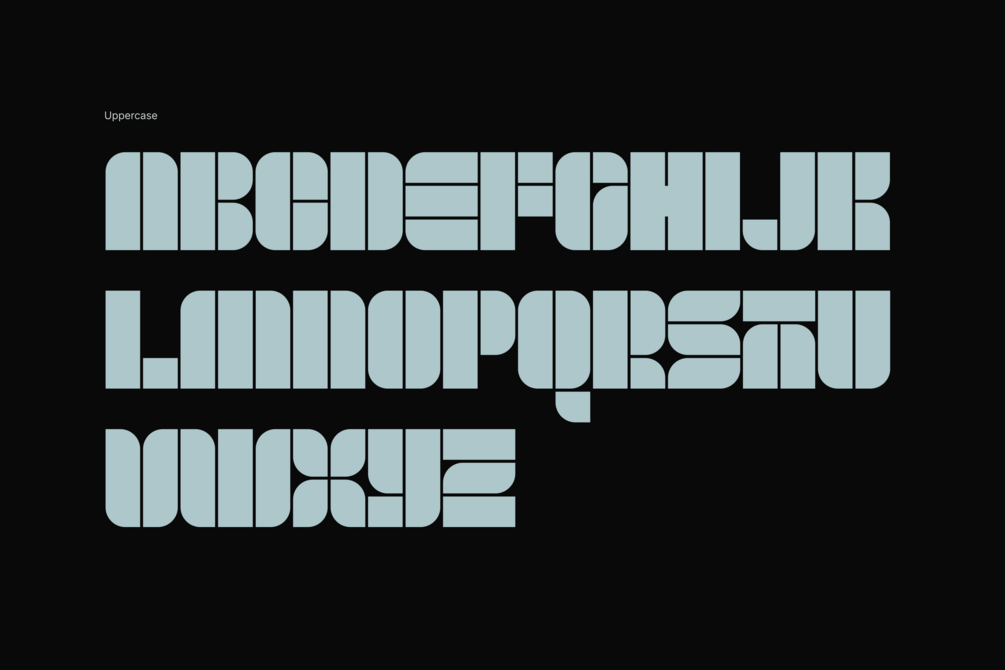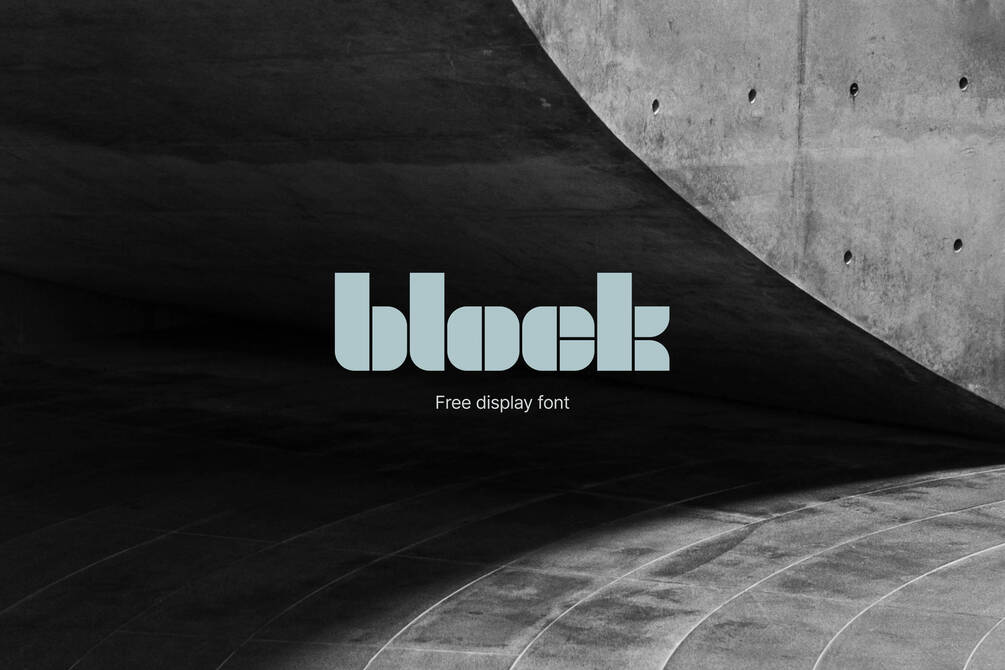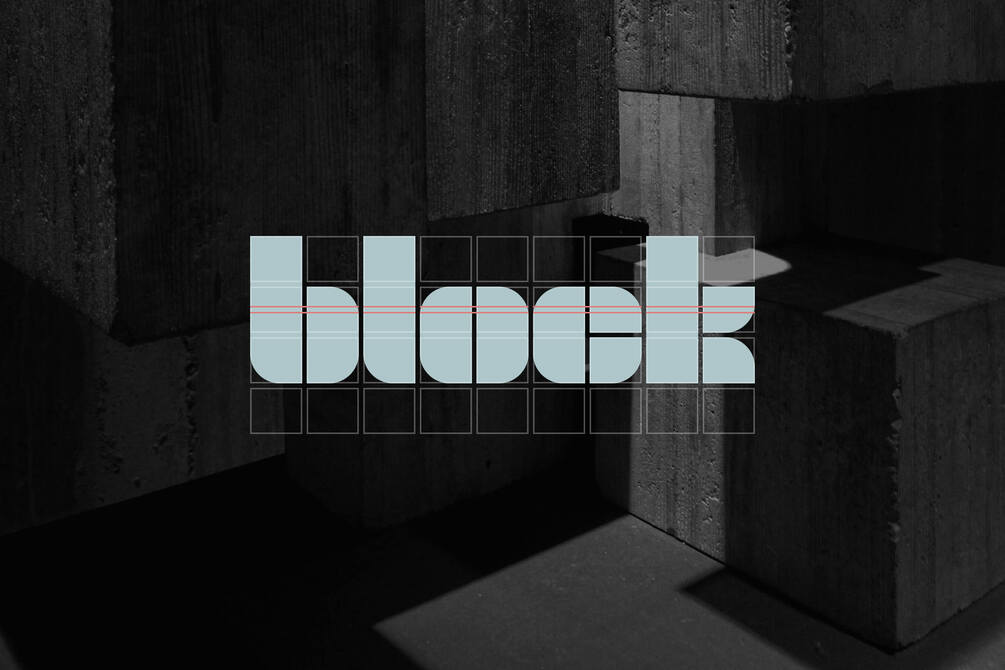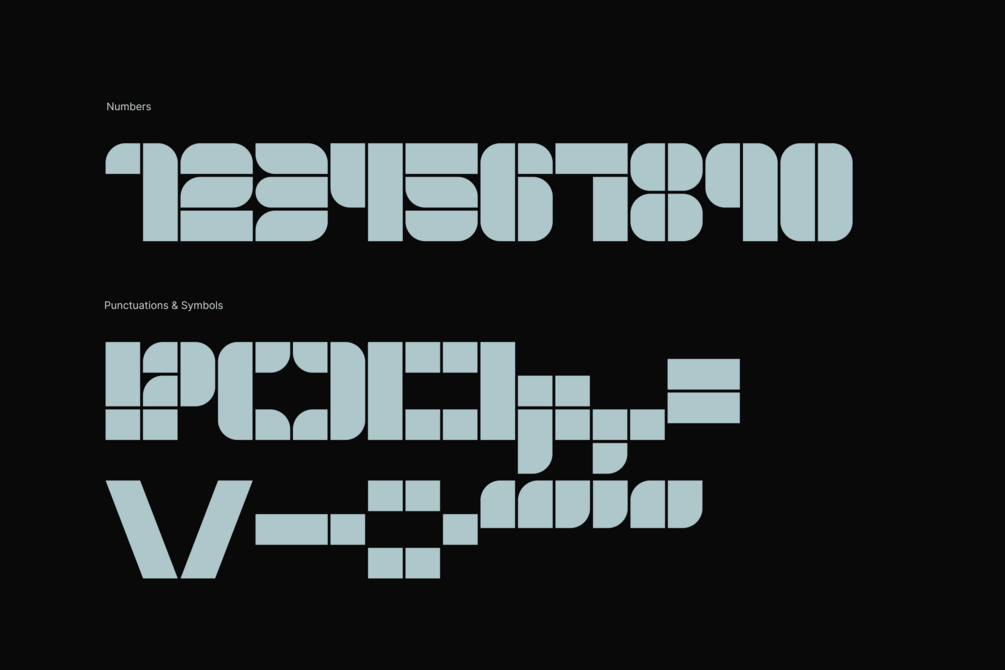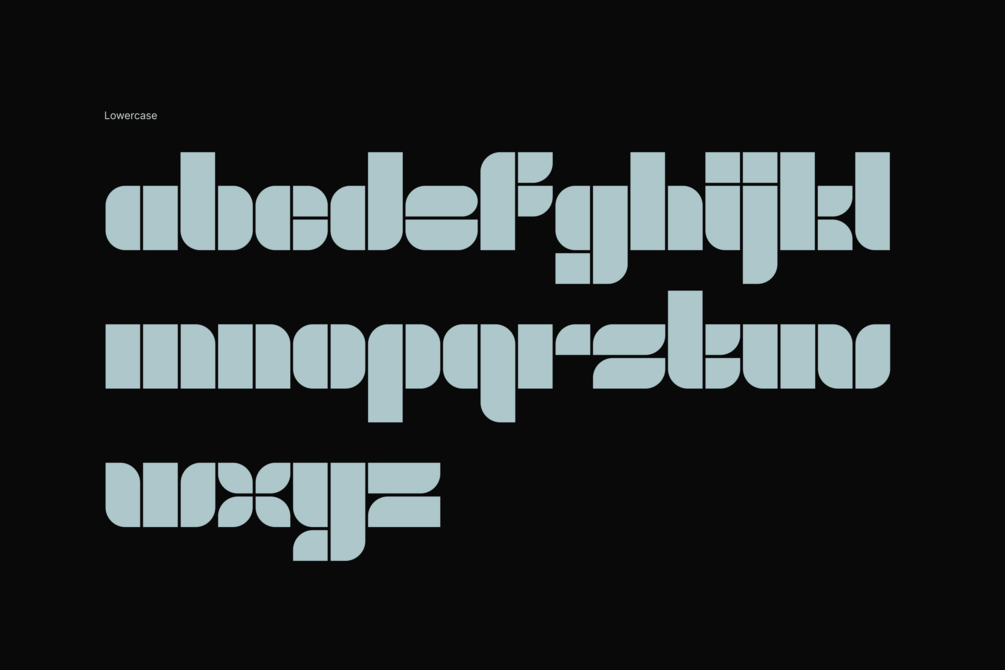
Block is a font created with basic geometrical shapes. Each characters are formed with blocks of basic rectangles with various curved corners, separated with either vertical or horizontal gap, creating the stencil-like effect. I tried create the characters with the same concept without losing its original shapes and characteristics. The only exception is the character “H” where it’s the only character with conjoined rectangle.
Besides that, the characters are tightly kerned, so that the gaps are consistent. It also carries the concept of building blocks, and giving monospaced-like visual outcome. During the design phase of the font, I also took inspiration from to Neo Tetra font designed by Benny Yang.
Block font comes with basic latin characters including uppercases, lowercases, numbers and selected punctuations. Block is free and it’s suitable for display and as wordmark.